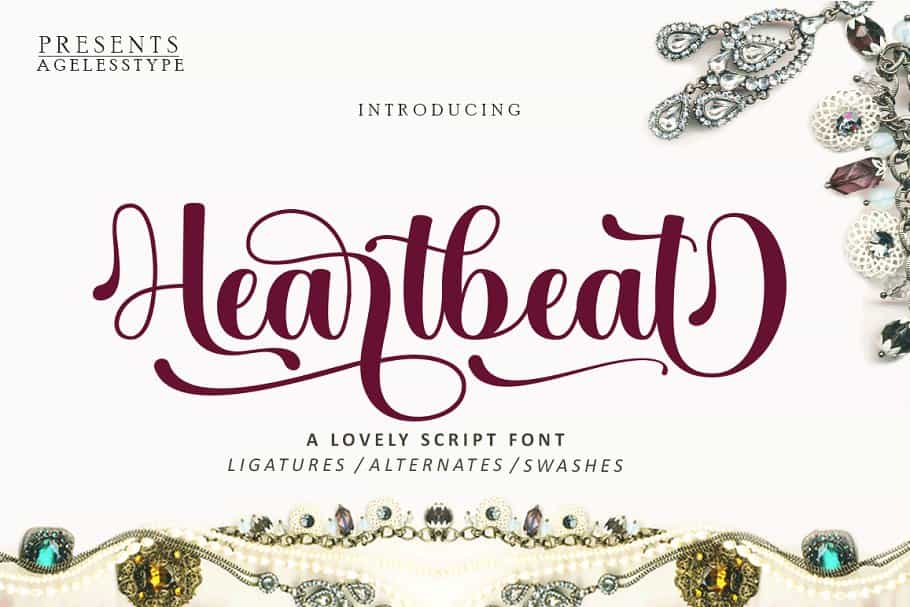
Heartbeat – is a modern, trendy, neat and strong script font. This can be utilized to make superb corporate logos, texts, posters, magazines, titles and business cards as well as web designs for business purposes.